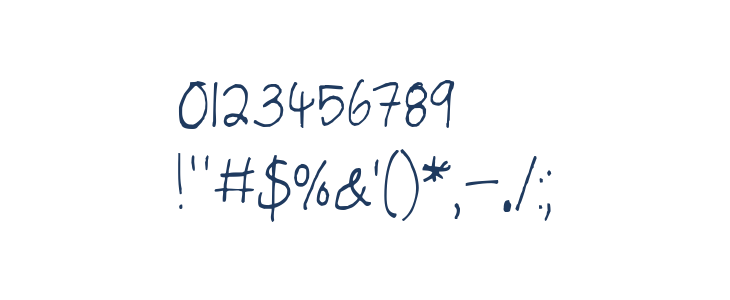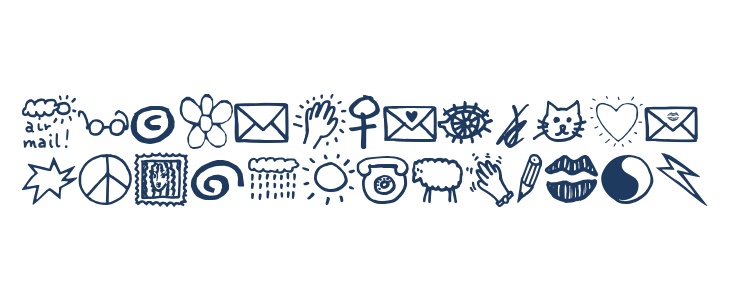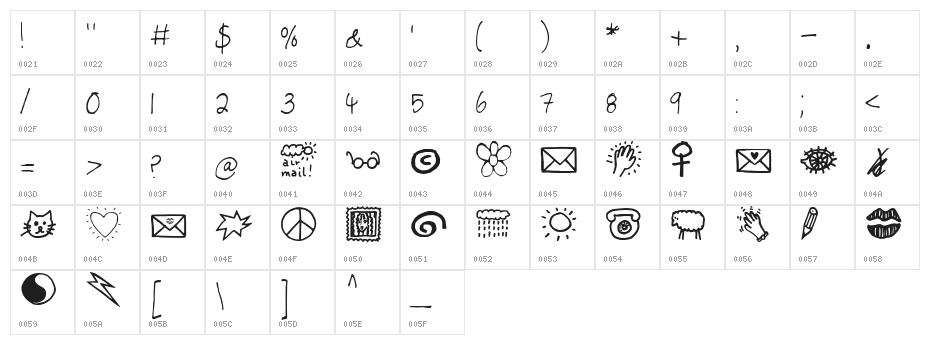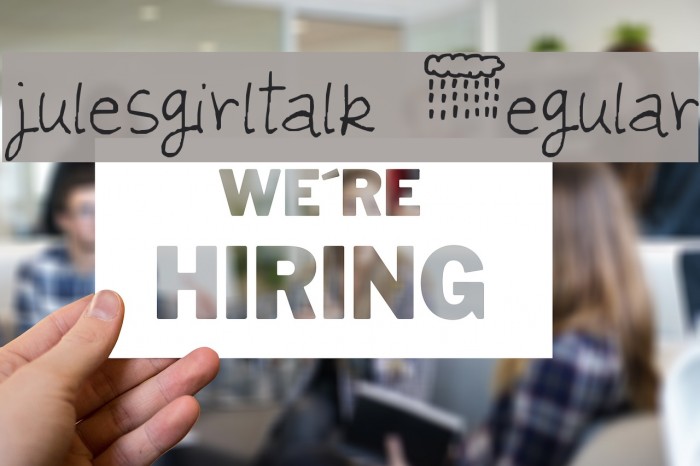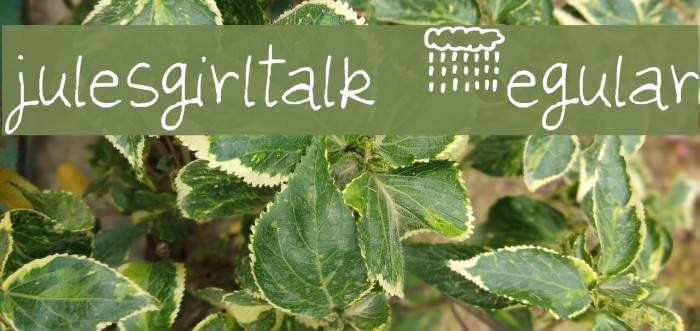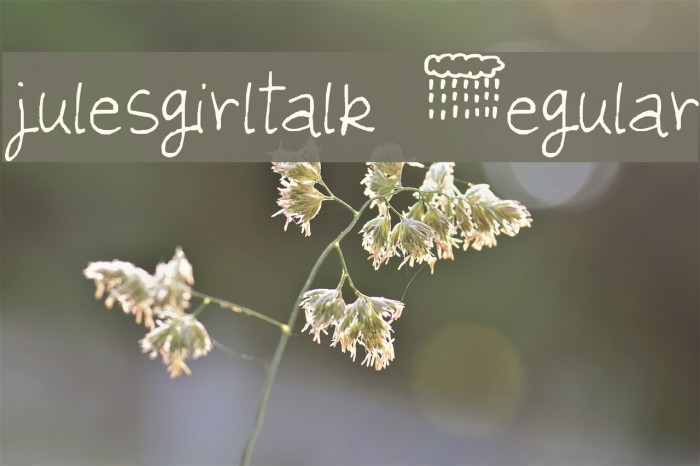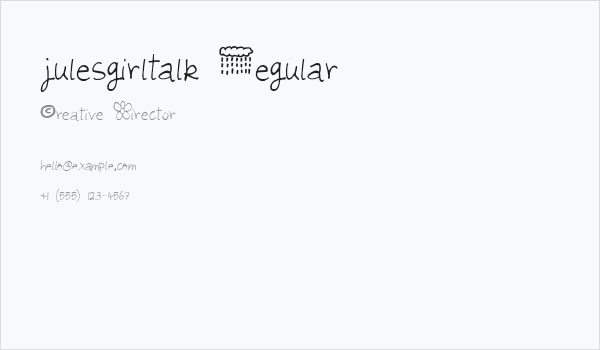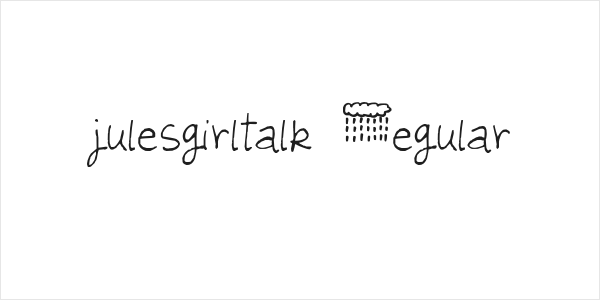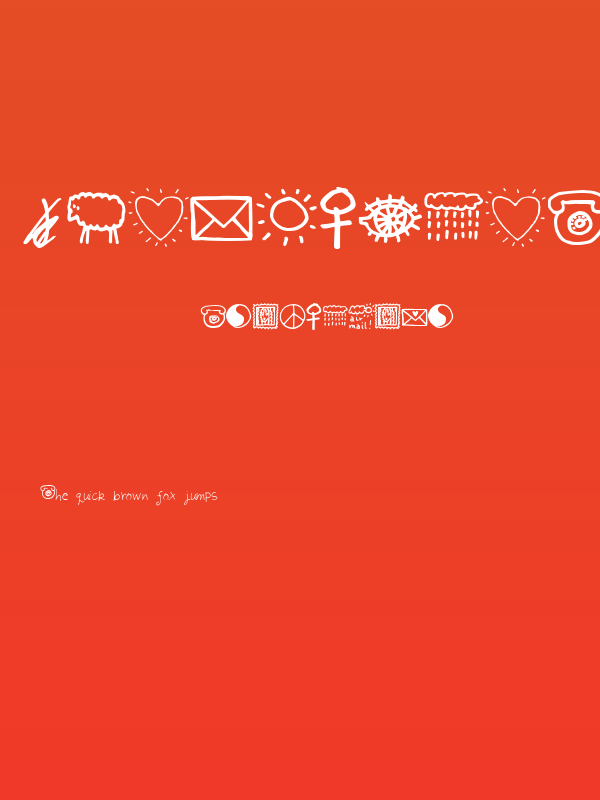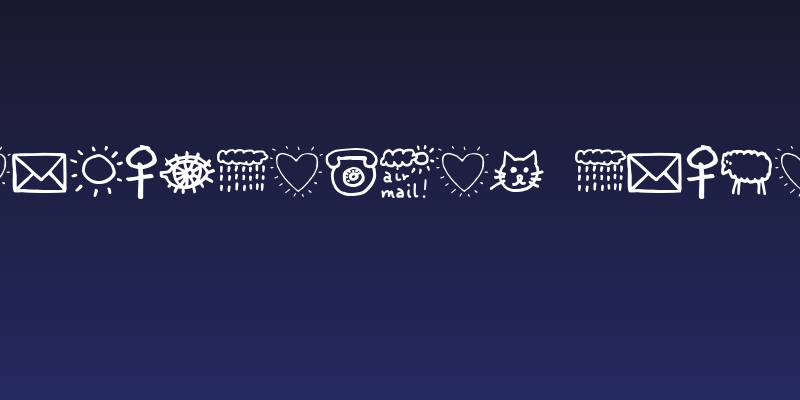
julesgirltalk Regular Font
julesgirltalk Regular Description
This playful and whimsical font features a handwritten style with a casual, friendly appearance. The characters are slightly irregular, adding to the charm and informal feel. The strokes are smooth and rounded, giving it a soft and approachable look. The font includes a variety of decorative symbols and icons, enhancing its versatility for creative projects. Its unique style makes it suitable for projects that require a personal touch or a fun, lighthearted vibe.
| Proposed Projects | Ideal for greeting cards, children's books, personal blogs, and creative invitations. |